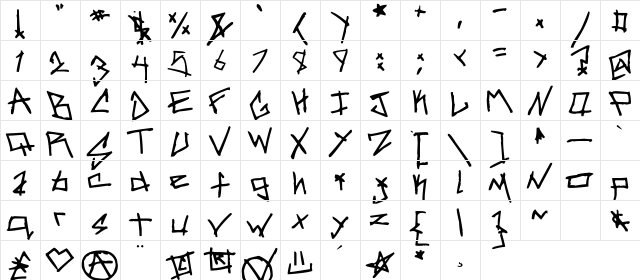
Samarchy Regular Free Font
Samarchy Regular
Complete Samarchy Regular glyph index. Displaying only characters natively supported by Samarchy Regular font.
Design Context for Samarchy
Samarchy is a composed and adaptable typeface that performs quietly and consistently across a wide range of design contexts.